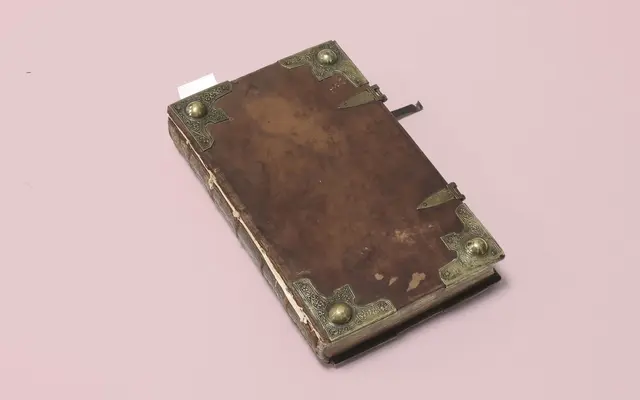
Portonovo
An old-style serif drawn from a 1690 Plantin Press printing, interpreting early Garamond and Caslon forms for contemporary use across two optical-size subfamilies.
The design takes its cue from a historic typeface found in the Martyrologium Romanum, printed by the Plantin Press in 1690, translating that source material's classical warmth into a refined digital family. Portonovo is optimised for display and general body use, while Portonovo Text handles small sizes below 8pt. Both subfamilies span Book to Black with matching italics, and the family is also available as a variable font with separate weight and optical-size axes. OpenType features include small caps, oldstyle figures and swashes.
Inspired by early Garamond and Caslon models via a 1690 Plantin Press source, Portonovo is firmly in the old-style serif tradition with classical proportions and humanist letterform characteristics.